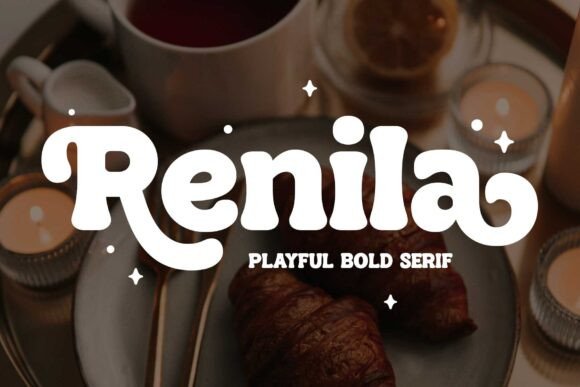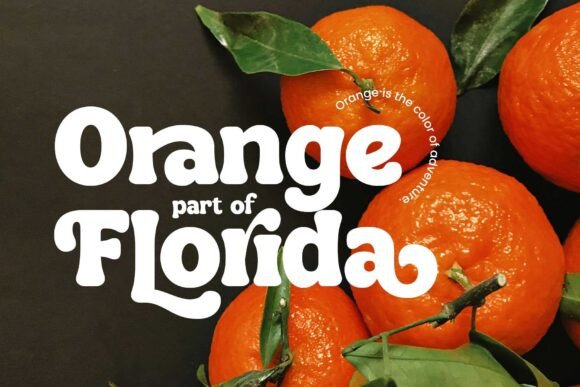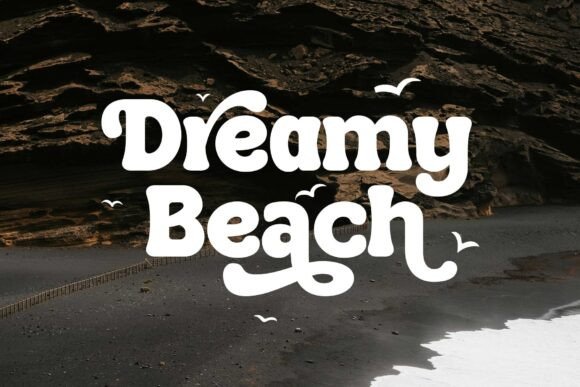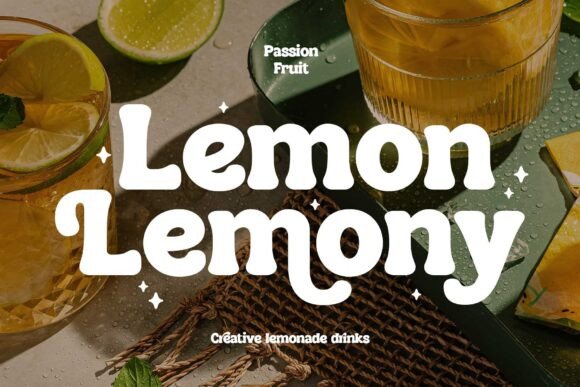
Renila Font: Groovy Retro Typography for Playful Logo Design
About the Renila Font
Crafted with precision, the Renila Font is ready to bring your ideas to life. Renila is a retro bold font with a unique groovy touch, blending nostalgia with modern charm. Perfect for logos, posters, social media, and branding, it adds a special spark to your projects.
With a range of alternates and ligatures, Renila offers endless possibilities for your designs, allowing you to express your unique vision.
Renila’s bold, playful personality makes it ideal for headlines, short-form text in posters and social media graphics, and eye-catching branding elements. It’s particularly effective for projects aiming for a retro-inspired aesthetic, conveying a sense of fun and energy. However, its strong visual weight makes it unsuitable for body text or UI elements where readability is paramount. Long paragraphs set in Renila would be visually overwhelming and difficult to read.
Consider pairing Renila with a clean sans-serif like Montserrat for a balanced contrast, or a delicate script font such as Great Vibes for a touch of vintage elegance. For a more modern feel, a geometric sans-serif like Futura would complement its retro boldness.
The font’s overall retro-modern vibe suits brands focused on music, fashion, entertainment, or food and beverage with a playful, slightly nostalgic identity. Avoid using it for projects requiring a sophisticated or minimalist aesthetic.